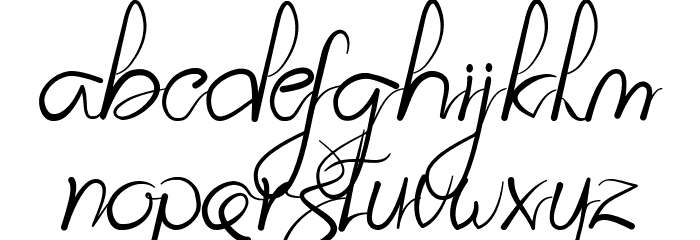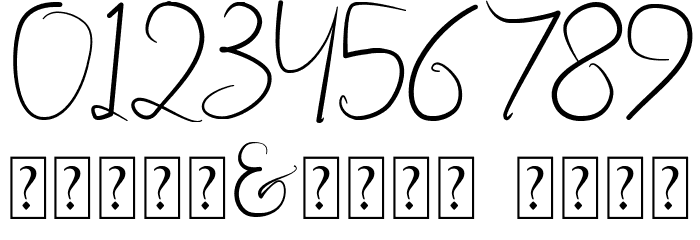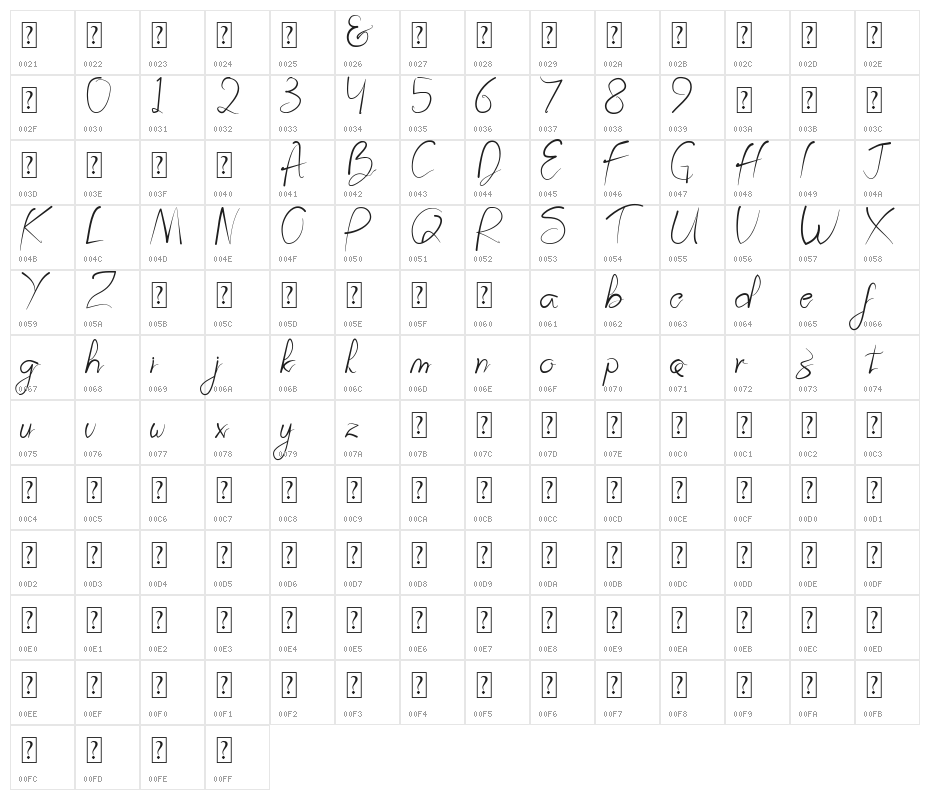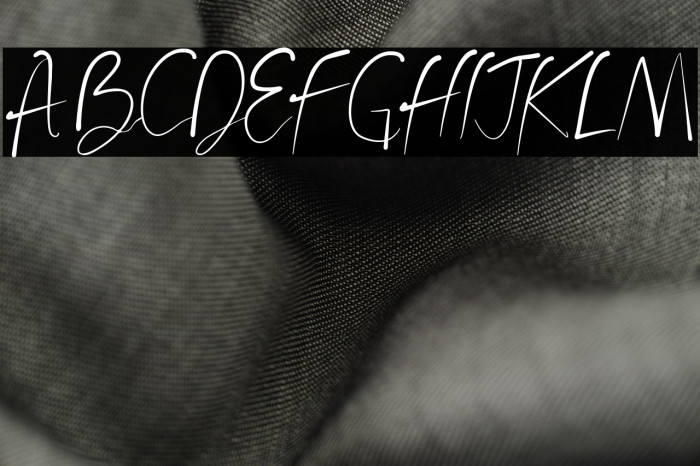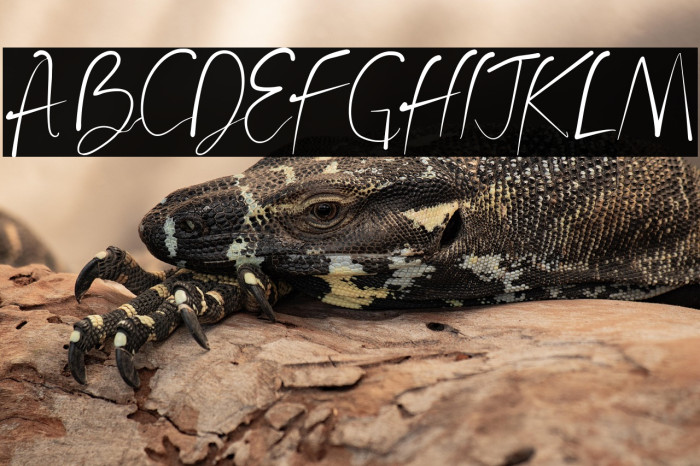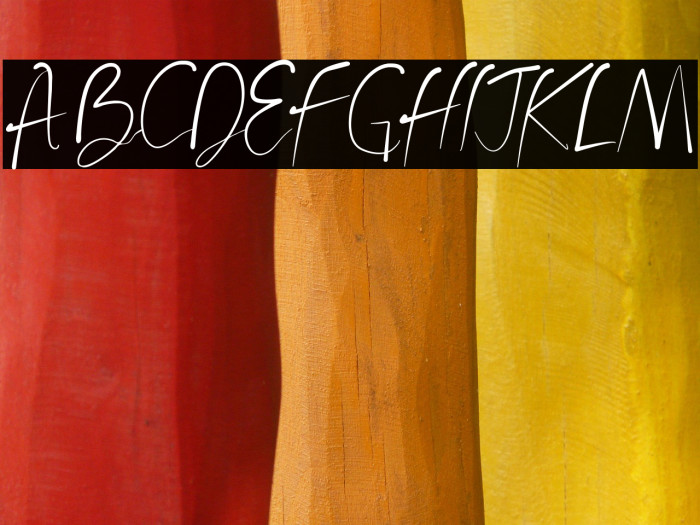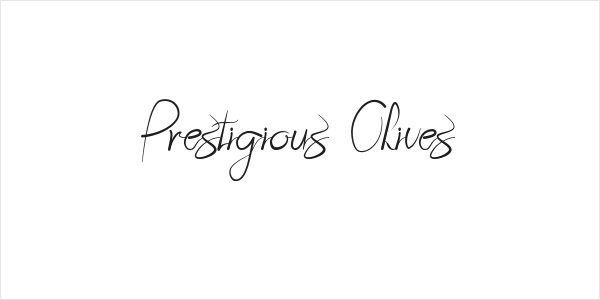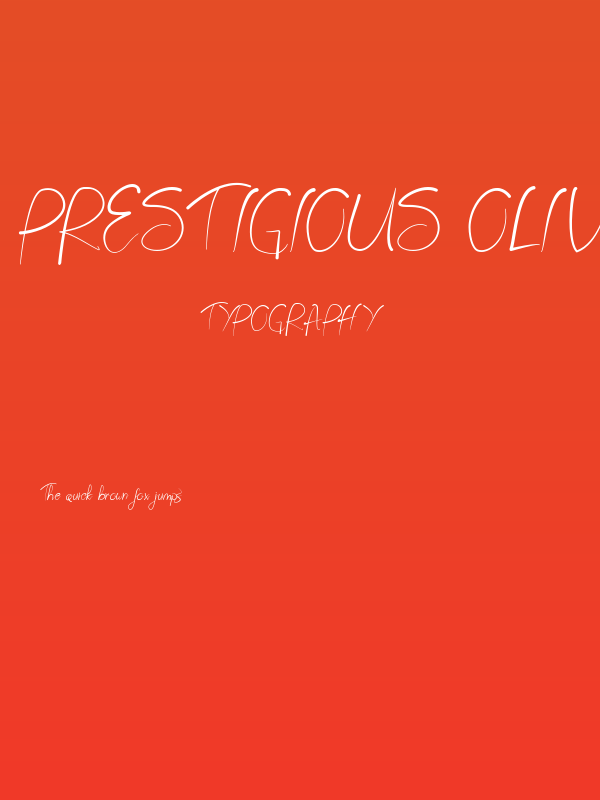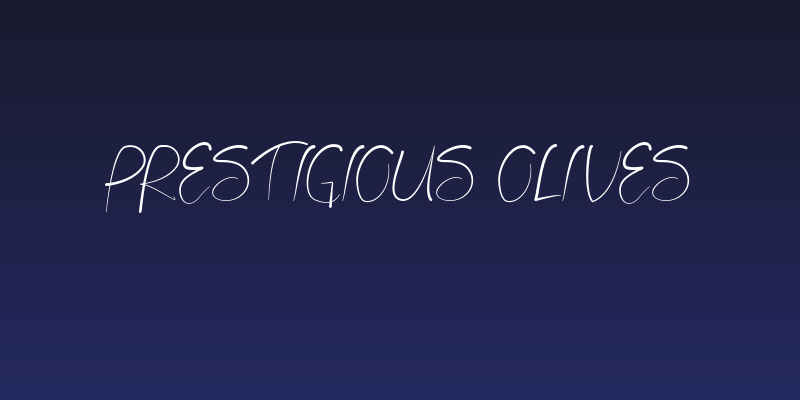
Prestigious Olives Font
This font features a sophisticated and elegant script style, characterized by its fluid and graceful strokes. The uppercase letters exhibit a tall and slender form, with gentle curves and a slight slant that adds a sense of motion and elegance. The lowercase letters maintain a consistent flow, with some characters extending below the baseline, enhancing the font's dynamic appearance. The numerals are designed with a similar elegance, featuring smooth curves and a balanced proportion. Special characters like the ampersand are artistically crafted, adding to the font's overall charm. This font is ideal for projects that require a touch of sophistication and style.
An elegant and fluid script font with graceful strokes and a dynamic appearance.
- Font: Prestigious Olives
- Proposed Projects: Ideal for wedding invitations, luxury branding, elegant packaging, and sophisticated editorial design.
- Category: Script
- Overall Style: Elegant
- Use Case: Logos, Invitations, Branding